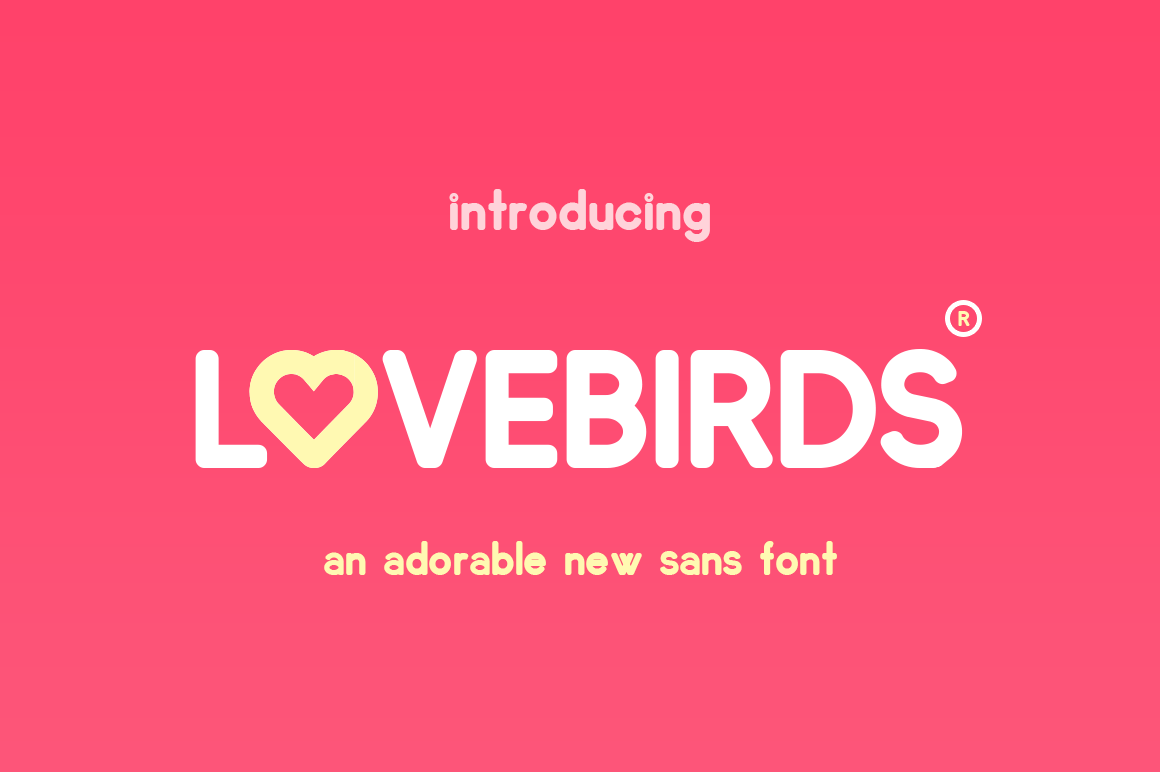
Lovebirds Font
Lovebirds is a fabulous new font that is easy to pair with others and yet strong enough to stand alone! For all of you lovers out there and if you’re not in love, but love fonts.. this one’s for you too!